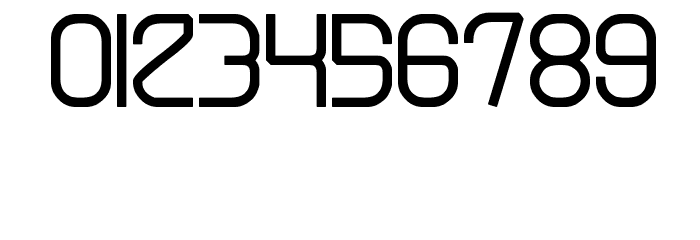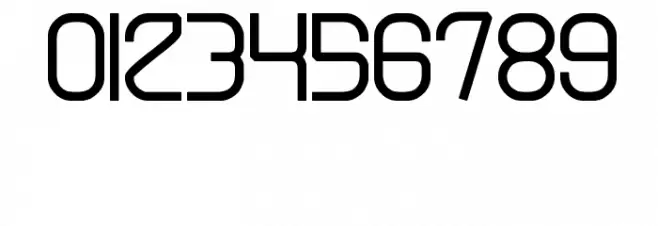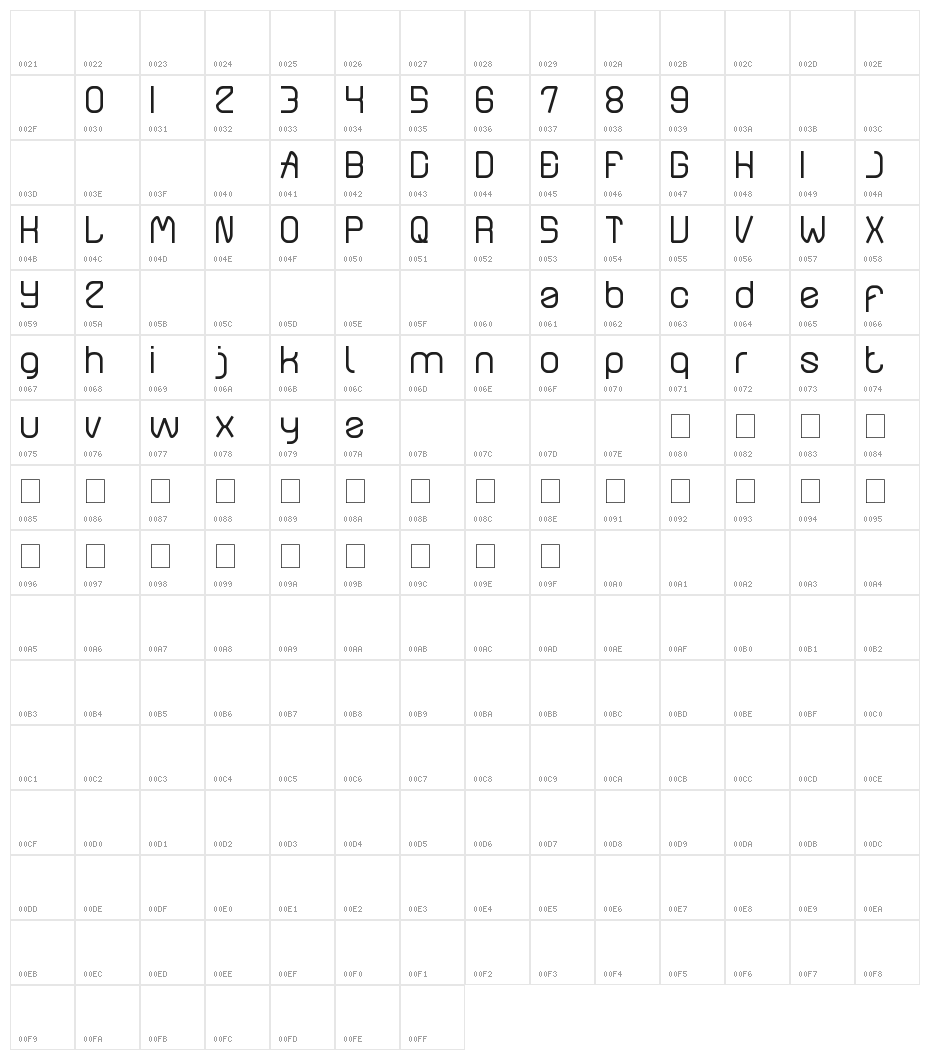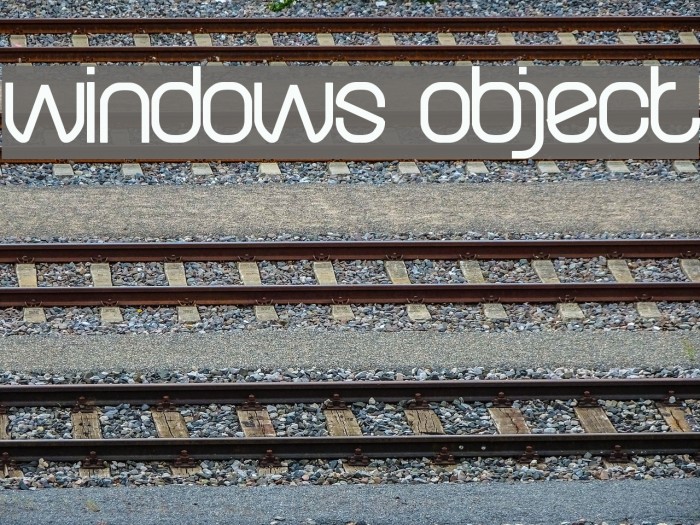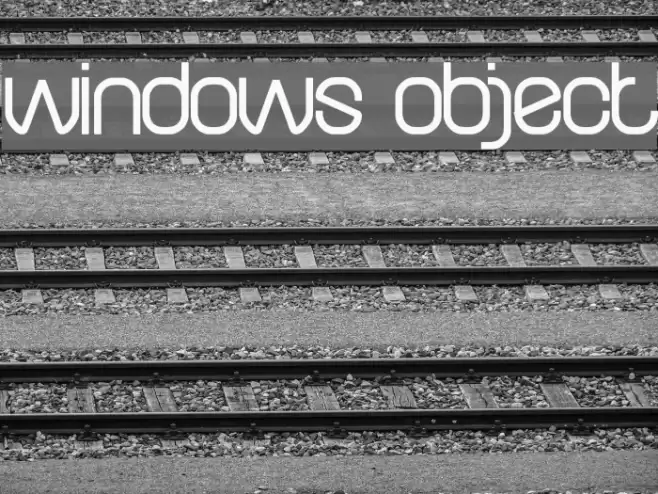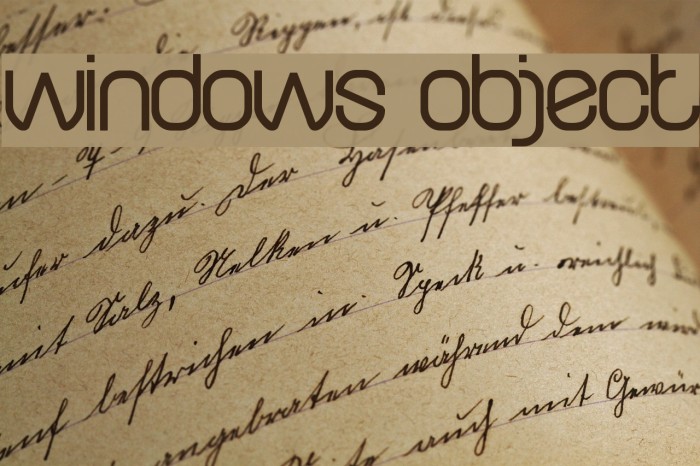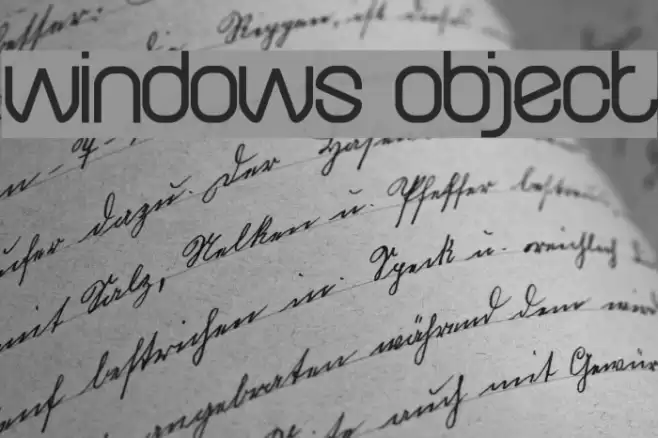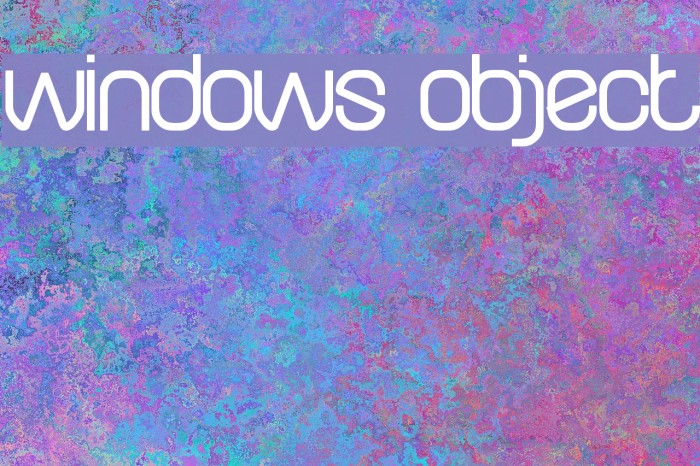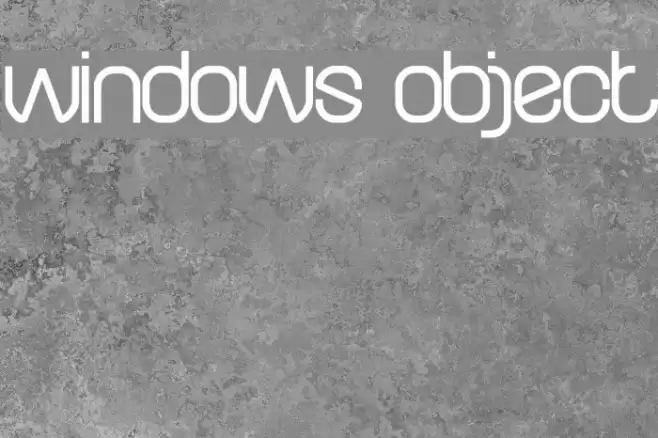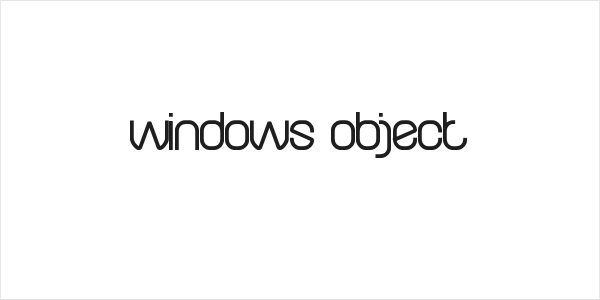
windows object Font
✎ Futuristic
| Gesamtstil | Futuristic |
| Anwendungsfall | Headlines, Logos, Digital interfaces |
| Vorgeschlagene Projekte | Ideal for technology branding, modern advertising, futuristic posters, and digital interfaces. |